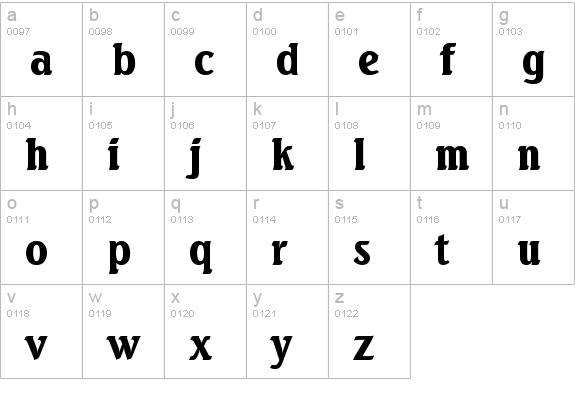
SeagullSerial-Black-Regular is a maximum-weight, dramatic variant in the SeagullSerial typeface family \xE2\x80\x94 well suited to maximum-impact headlines, posters, and packaging.
SeagullSerial-Black-Regular is a bold and versatile font that exudes a sense of strength and modernity. Its clean lines and sharp edges make it perfect for a variety of design projects, from logos to headlines. This sleek typeface commands attention and adds a touch of sophistication to any design. The best part? SeagullSerial-Black-Regular is available for free download at FontsMarket.com. Whether you're a seasoned designer looking to freshen up your font collection or a newcomer eager to experiment with different styles, this font is a must-have addition to your toolkit. Don't miss out on the opportunity to elevate your designs with this stylish and impactful typeface.